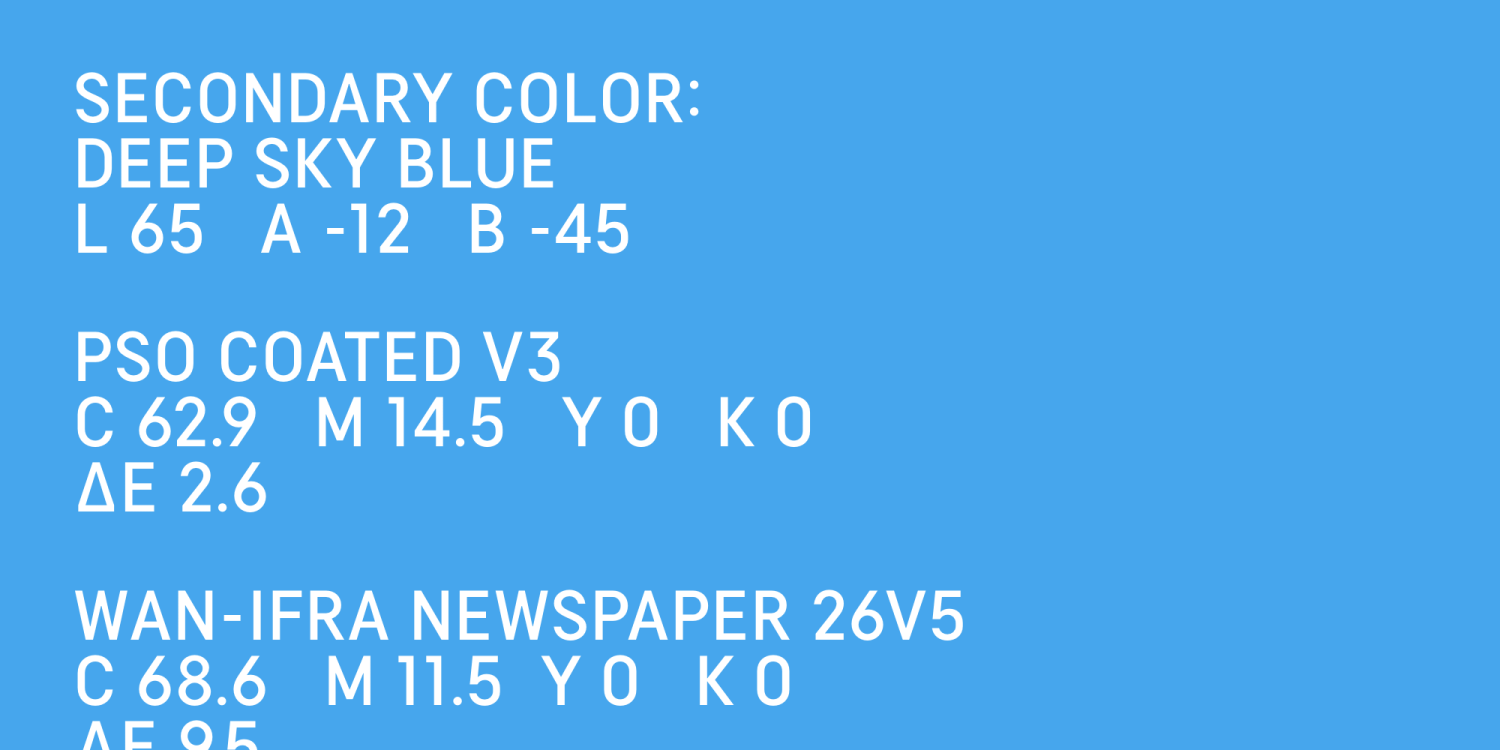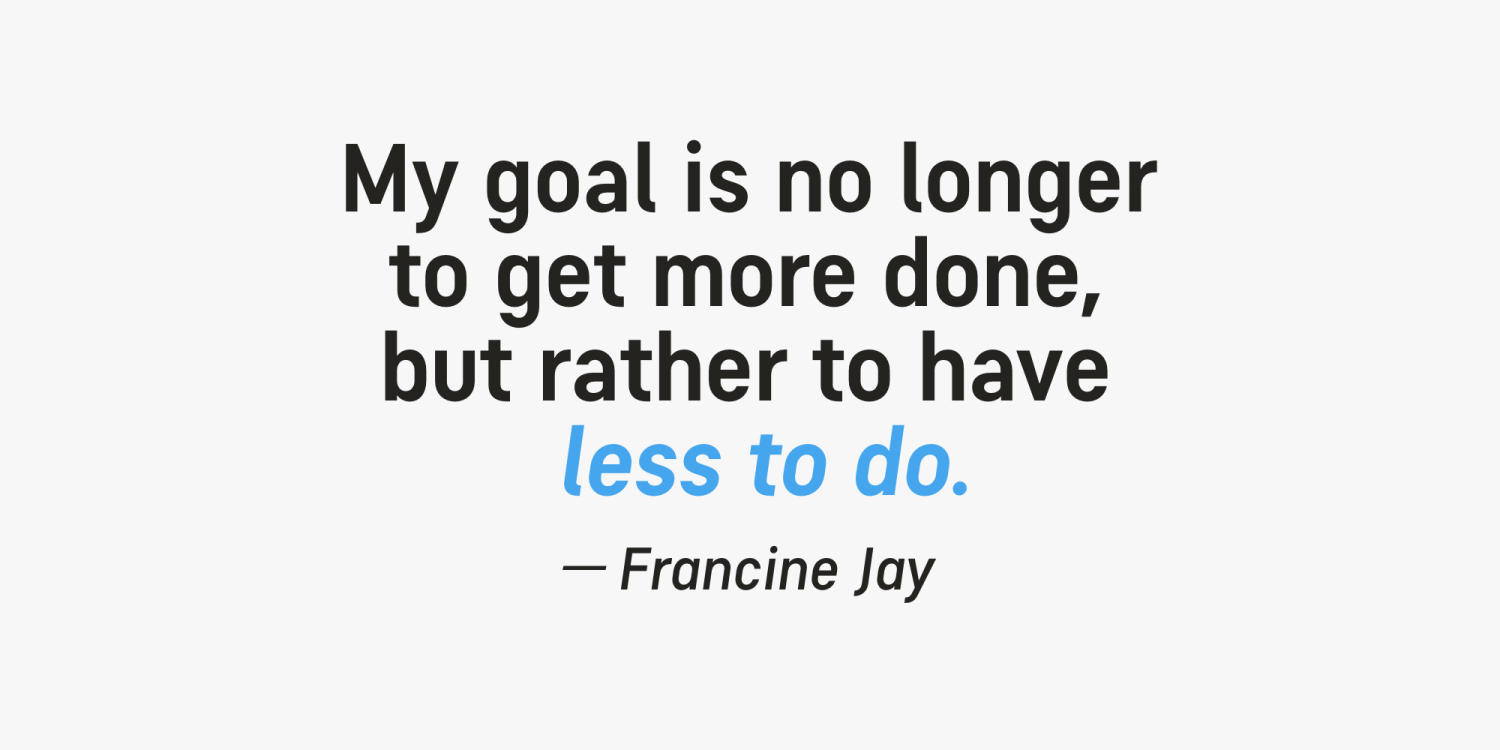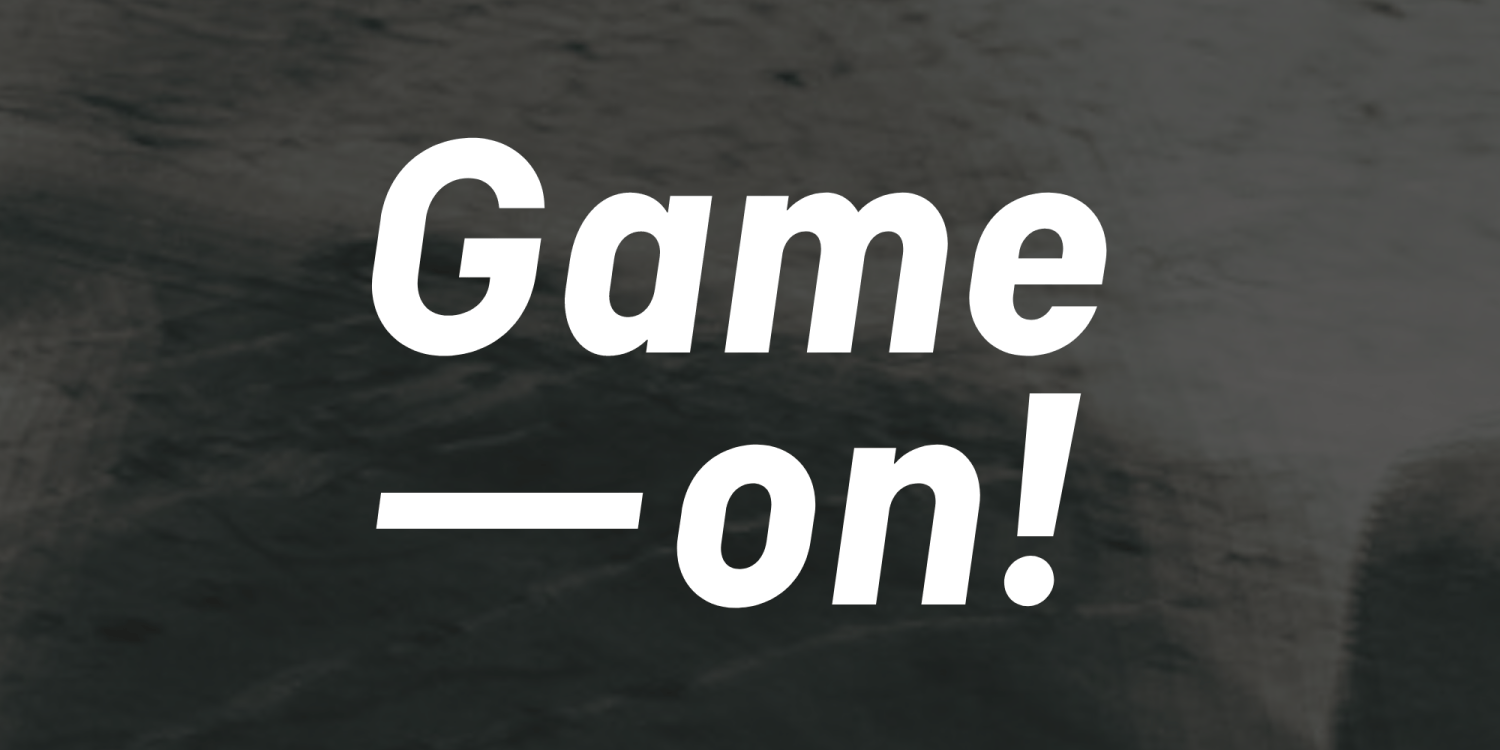
About Tilson
Meet Tilson, a versatile workhorse family for both texts and headlines based on a geometric and straight-lined design. It will give your apps, websites, logos, posters and so much more a techy and masculine look and feel. However, some friendly rounded…